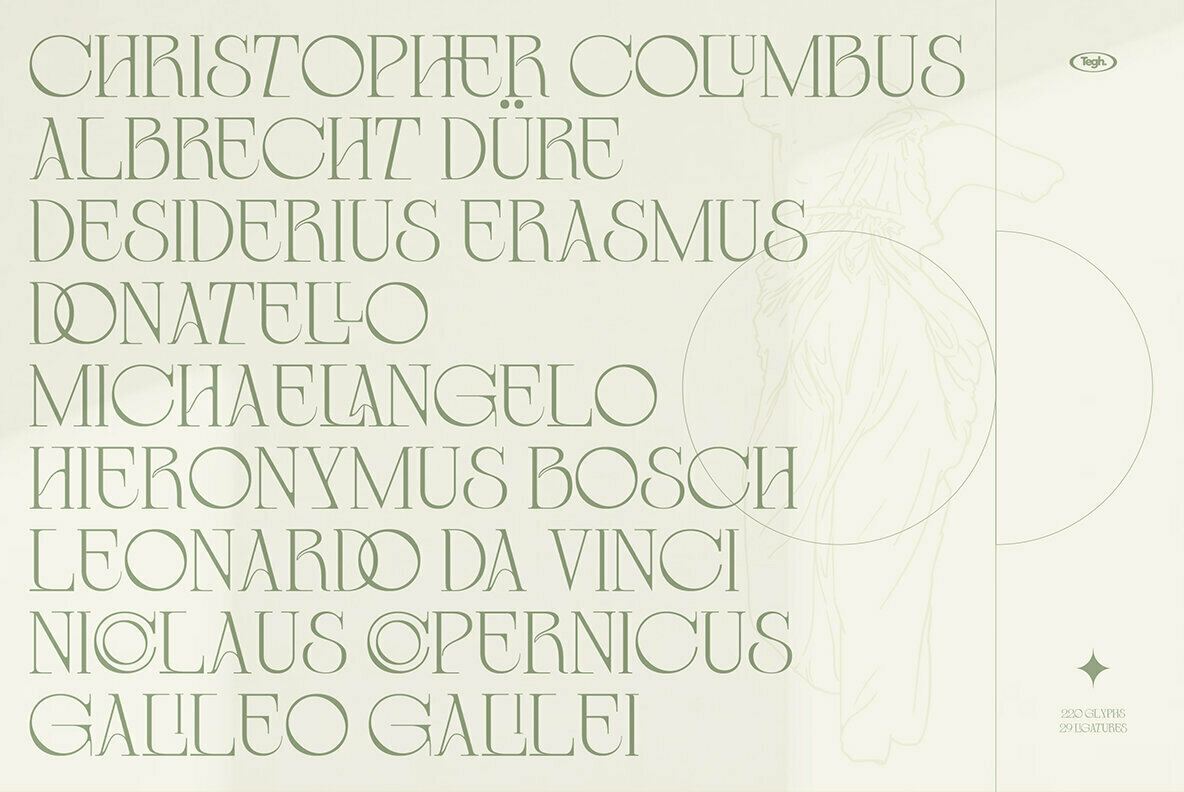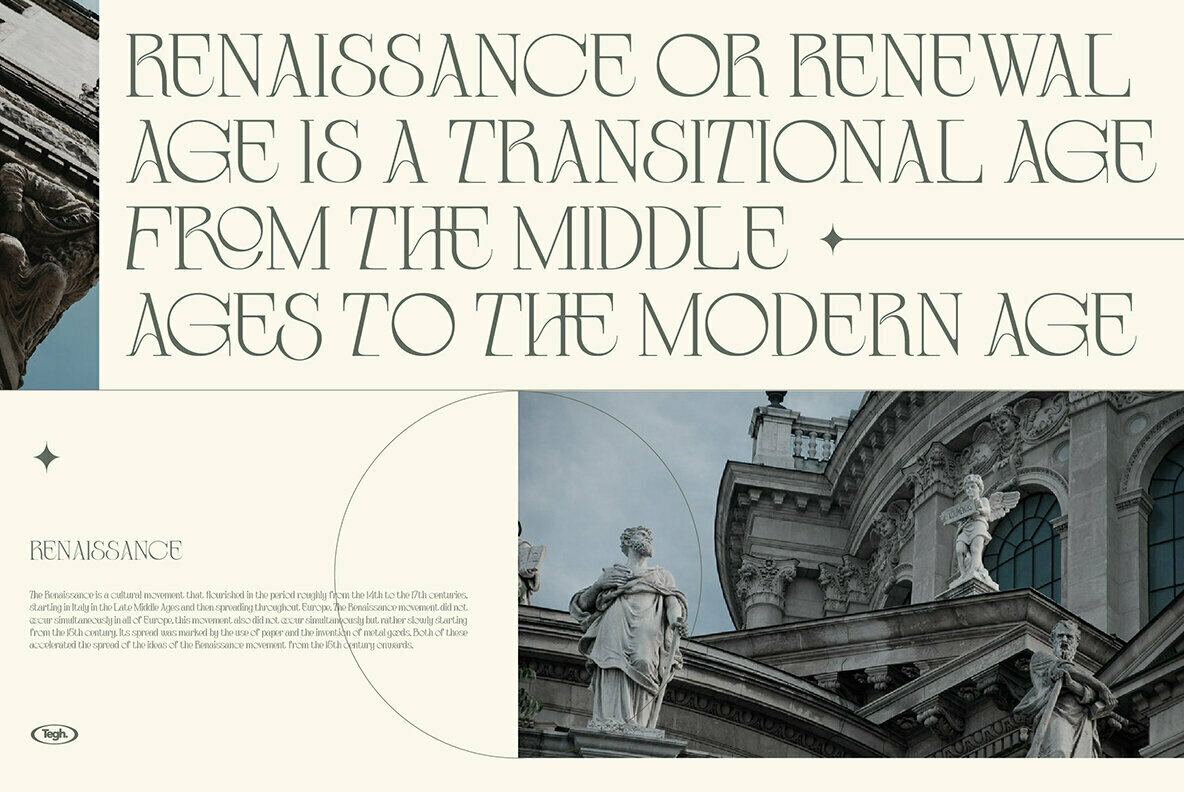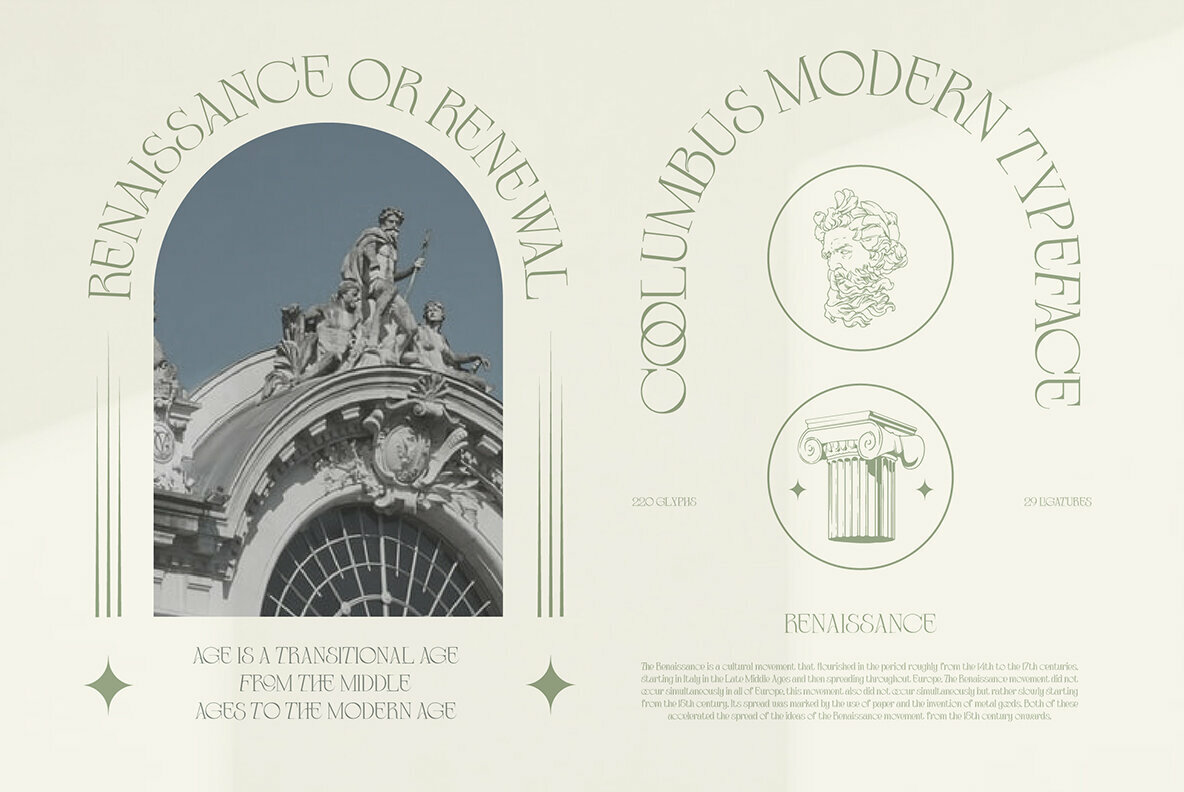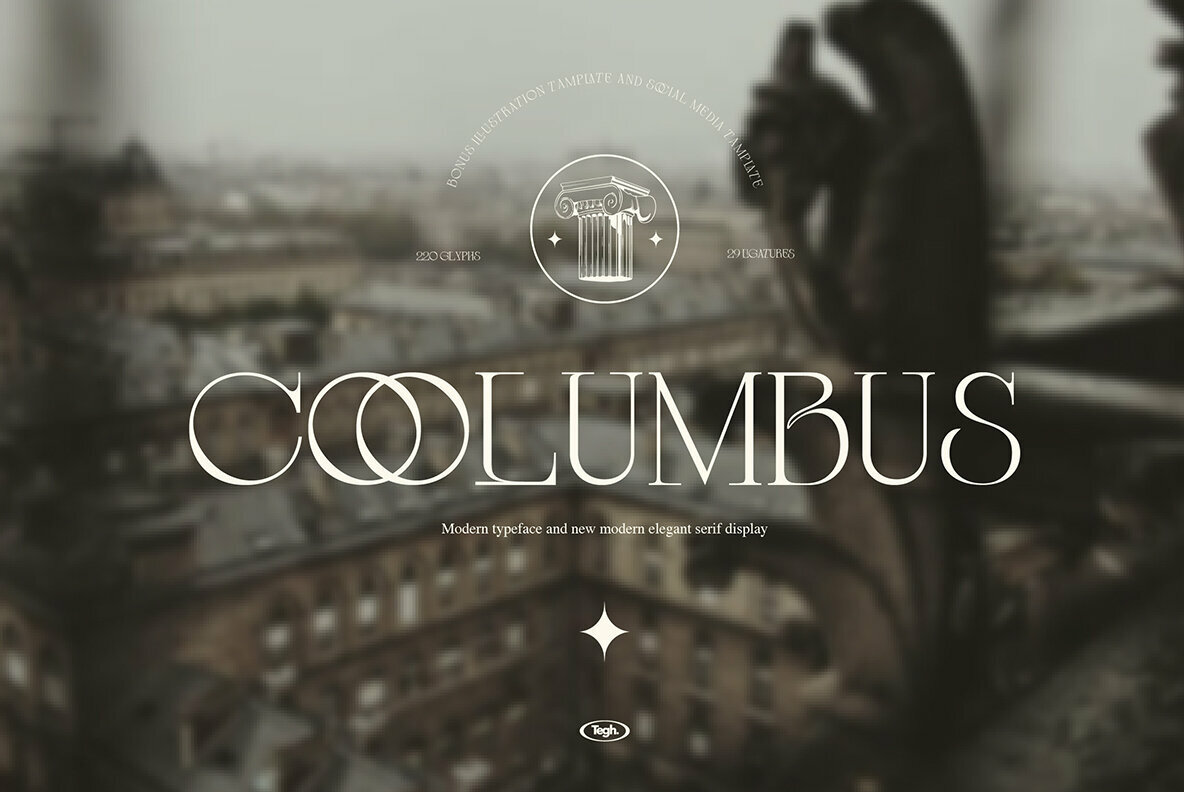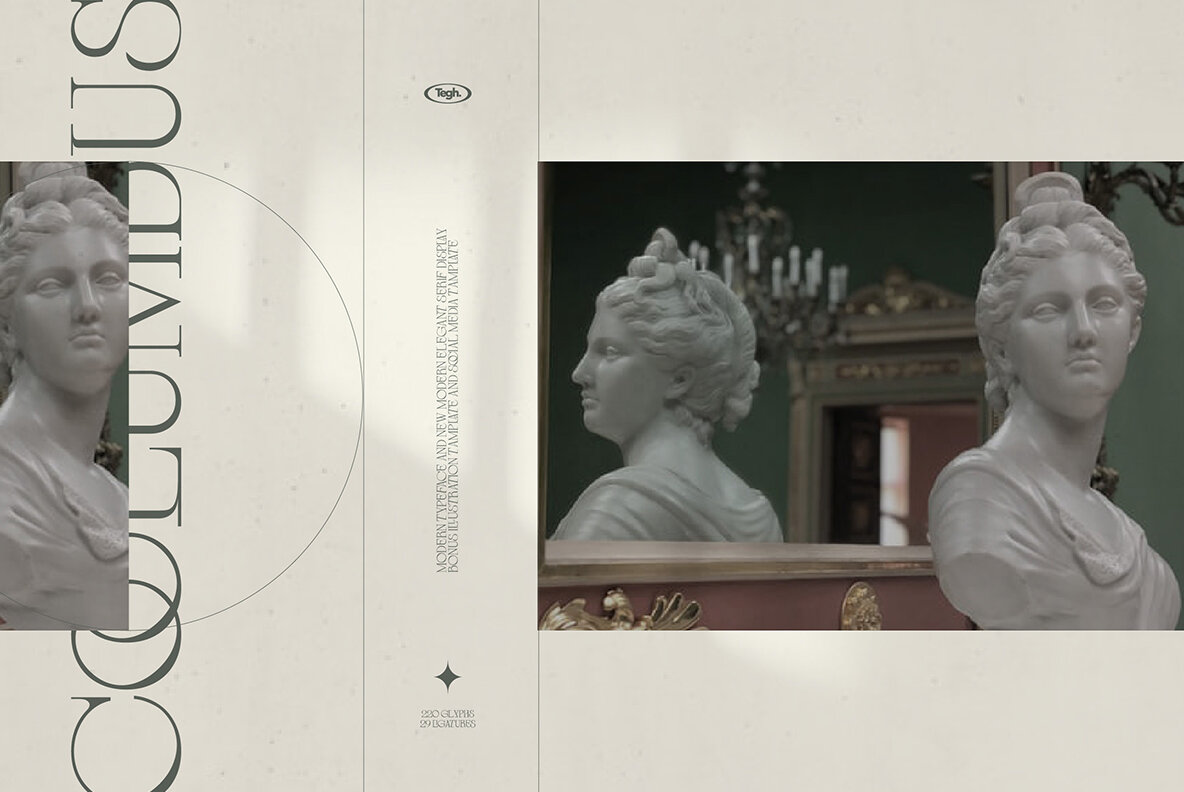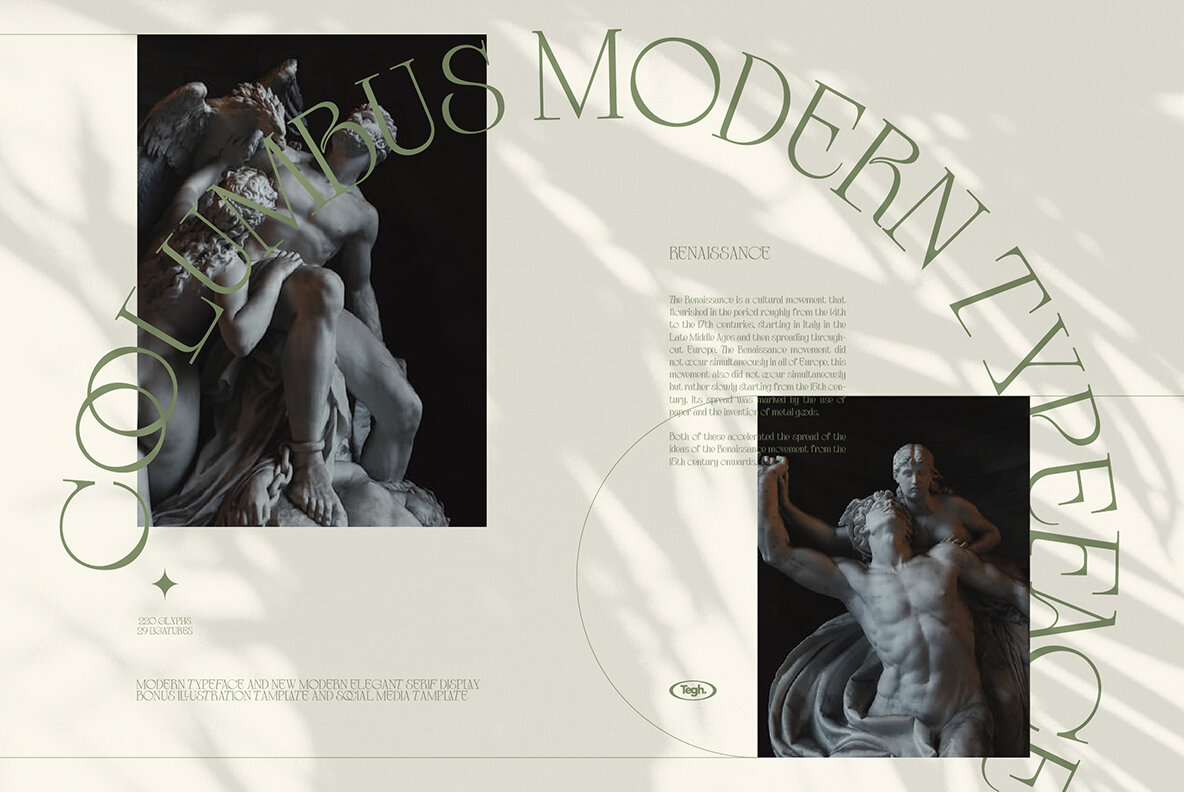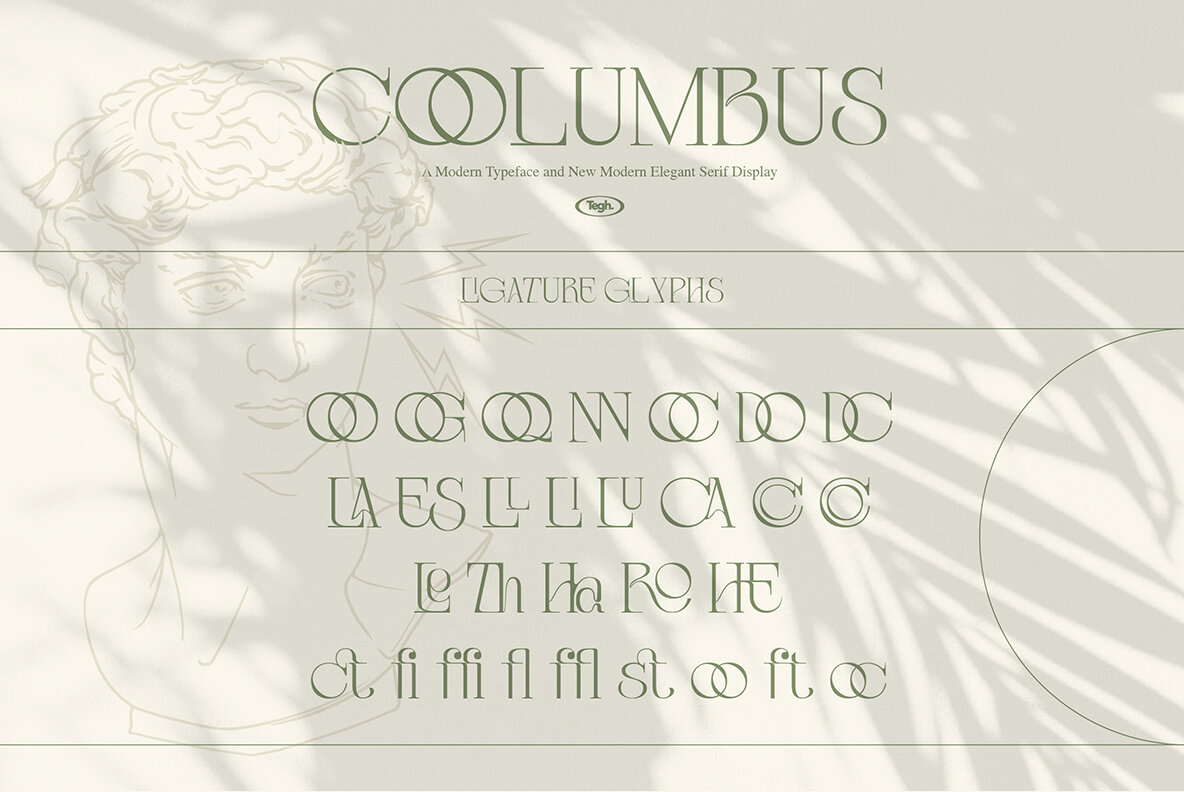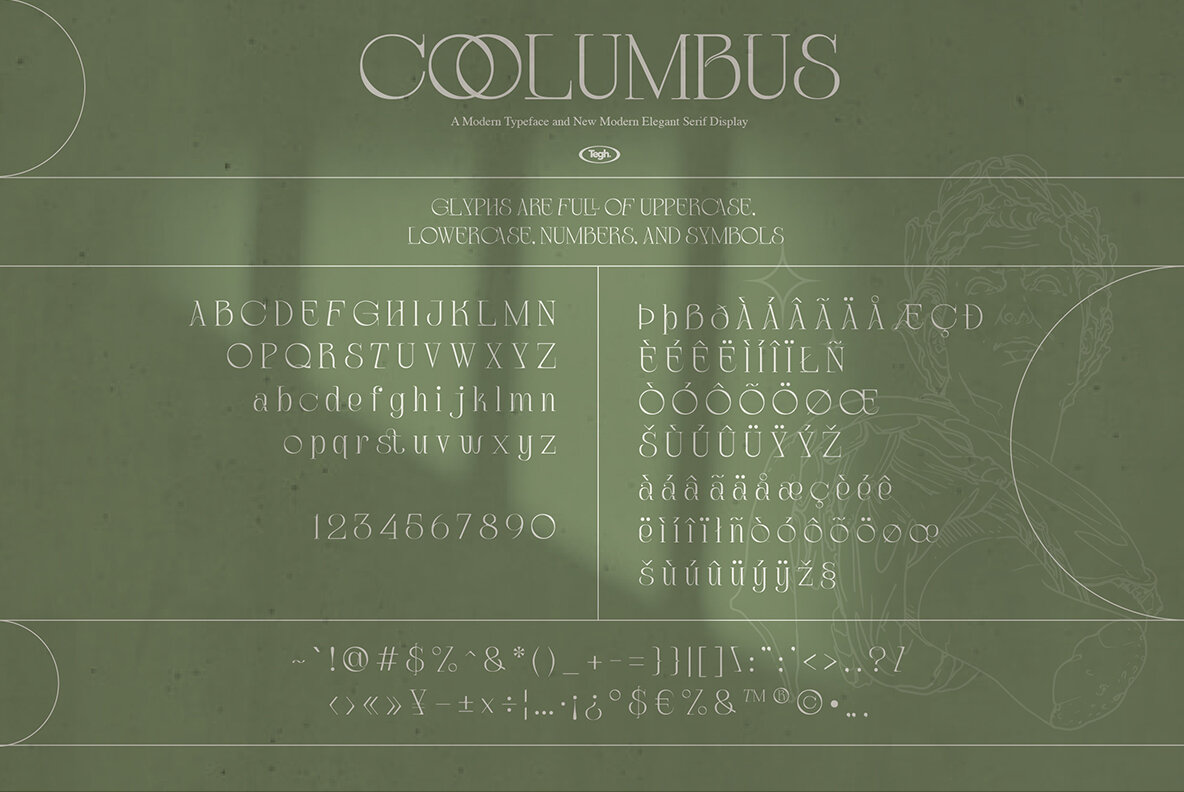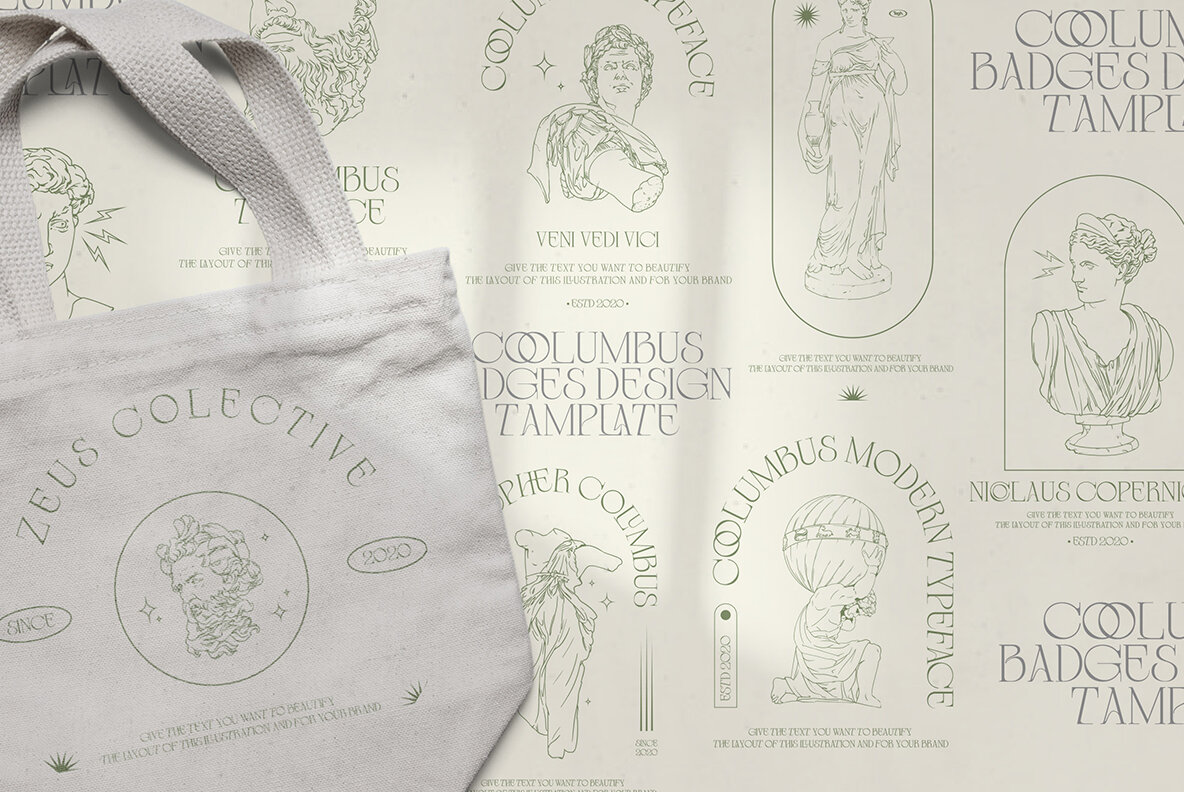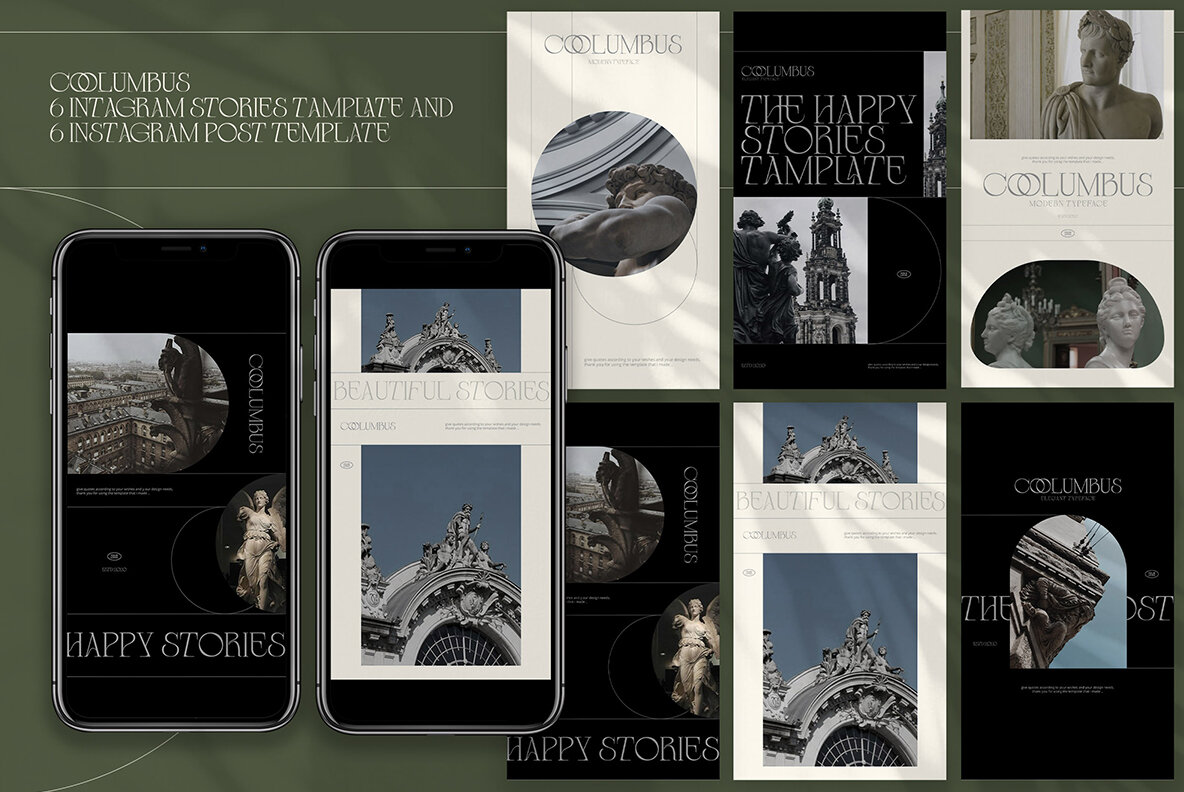
Coolumbus Font
For those seeking a design solution that meets both traditional and contemporary needs, Coolumbus offers a modern serif typeface tailored to enhance your creative endeavors. Crafted with meticulous care, this font provides a harmonious balance that allows for elegant design possibilities across various projects. In addition to the font itself, Coolumbus comes with bonus resources to elevate your design work effortlessly. This package includes editable social media templates and illustrations, providing versatile tools ready to be customized to suit your specific requirements.Coolumbus: A Modern Serif Font for Designers